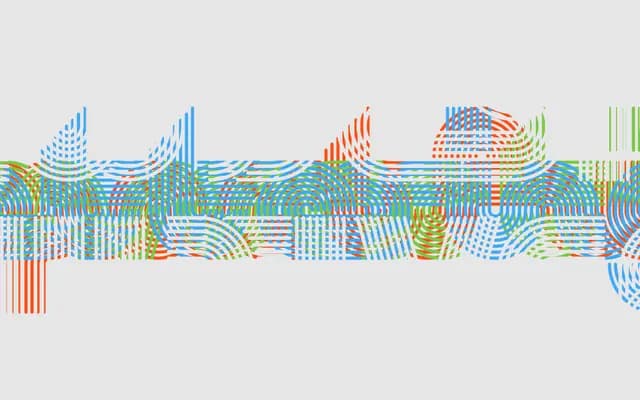
Octothorpe
Pampatype · Jorge Iván Moreno Majul · 2020
A multiline display revival of Tony Wenman's Letraset Stripes (1972), redrawn with eight parallel strokes and extensive OpenType features for Latin, Greek and Cyrillic.
Based on Tony Wenman's Stripes, released by Letraset in 1972, this face replaces solid strokes with eight concentric lines, producing a hypnotic, variegated texture suited to posters, record covers and magazine headings. The family spans two styles: the core Latin-extended version and a PanEuro edition adding Greek monotonic and basic Cyrillic. An unusually deep feature set includes contextual alternates for connected upper and lowercase, swashes, extensions, isolated forms and a full range of figure styles. Awarded at the Tipos Latinos 8th Biennale in 2018.
A high-contrast, eight-line stroke display face derived from Letraset's Stripes (1972), explicitly ornamental and titling in function, with no body-text application intended.